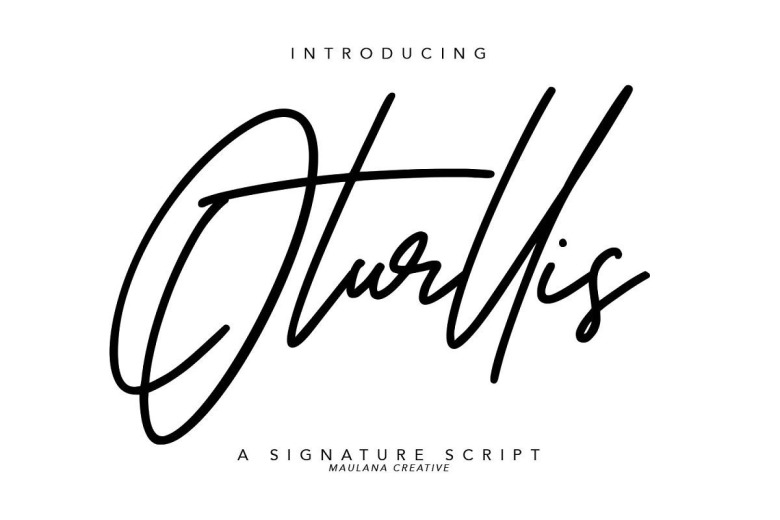
Oturllis Font
Give your designs an authentic handcrafted feel. “Oturllis Signature Script Font” is perfectly suited to signature, stationery, logo, typography quotes, magazine or book cover, website header, clothing, branding, packaging design and more. Included Stylistic Alternates.